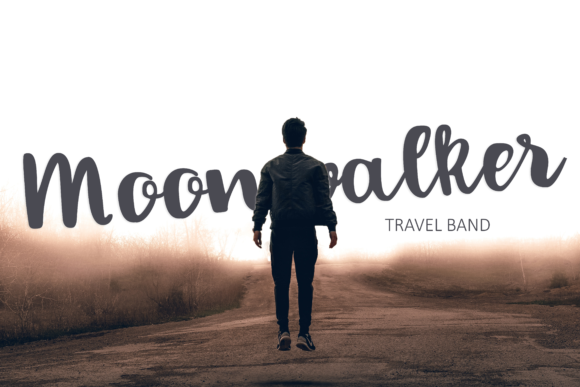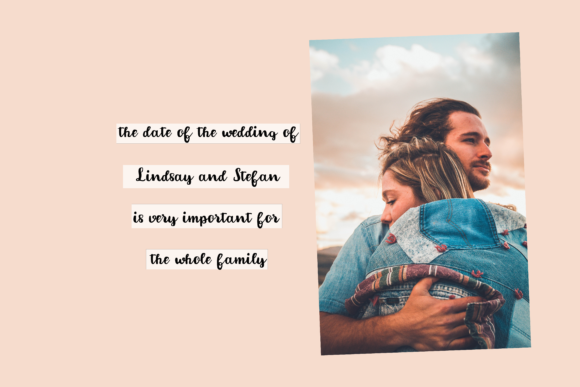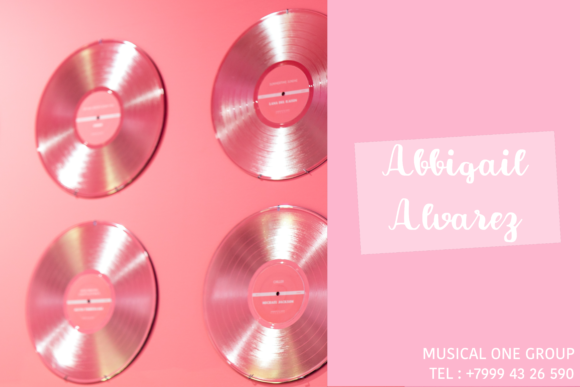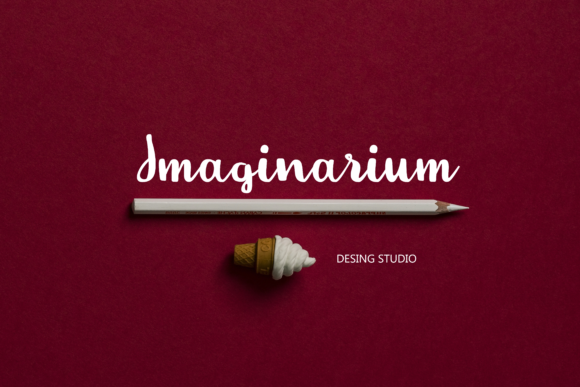
Forever Script Font: A Timeless Typeface Inspired by Love
When it comes to typography, there are countless fonts to choose from, each with its own unique character and charm. But what makes a font truly special? For us, it’s a font that tells a story, evokes emotions, and captures the essence of a feeling. And that’s exactly what the Forever Script Font does. Inspired by the power of love, this beautiful typeface is a must-have for designers and crafters looking to add a touch of elegance and romance to their projects.
The Story Behind Forever Script
Forever Script is a typeface inspired by love, with the simple yet profound philosophy that “the best thing in life is to believe that love is forever.” This beautiful script font is designed to capture the essence of eternal love, with flowing lines, delicate curves, and a sense of sophistication that’s hard to find in modern typography. Whether you’re working on a wedding invitation, a romantic getaway brochure, or a heartfelt letter, Forever Script is the perfect choice to convey your message with love and sincerity.
Design Features of Forever Script Font
So, what makes Forever Script Font so special? Here are just a few of its design features that set it apart from other script fonts:
- Flowing Lines: Forever Script features beautiful, flowing lines that give it a sense of movement and elegance. Each letter is carefully crafted to flow seamlessly into the next, creating a beautiful word that looks like it was written with love.
- Delicate Curves: The font features delicate curves and subtle swashes that add a touch of sophistication and romance to any project.
- Legibility: Despite its elegant design, Forever Script is highly legible, making it perfect for use in a variety of applications, from body text to headlines.
- Versatility: Forever Script is a versatile font that can be used in a wide range of projects, from wedding invitations and romantic getaways to fashion magazines and lifestyle blogs.
Uses of Forever Script Font
So, what can you use Forever Script Font for? The possibilities are endless! Here are just a few ideas to get you started:
- Wedding Invitations: Add a touch of romance and elegance to your wedding invitations with Forever Script Font.
- Romantic Getaways: Use Forever Script to create beautiful brochures and websites for romantic getaways and honeymoon destinations.
- Fashion Magazines: Add a touch of sophistication and glamour to your fashion magazine with Forever Script Font.
- Lifestyle Blogs: Use Forever Script to create beautiful and engaging content for your lifestyle blog.
- DIY Crafts: Forever Script Font is also perfect for crafters who love to create handmade cards, scrapbook pages, and other DIY projects.
Why Choose Forever Script Font?
So, why choose Forever Script Font over other script fonts? Here are just a few reasons:
- Unique Design: Forever Script Font has a unique design that’s unlike any other script font on the market.
- High-Quality: The font is designed with high-quality and legibility in mind, making it perfect for use in a variety of applications.
In conclusion, Forever Script Font is a beautiful and timeless typeface inspired by the power of love. With its flowing lines, delicate curves, and sense of sophistication, it’s the perfect choice for designers and crafters looking to add a touch of elegance and romance to their projects. Whether you’re working on a wedding invitation, a romantic getaway brochure, or a heartfelt letter, Forever Script Font is sure to make your project stand out. So why wait? Download Forever Script Font today and start creating beautiful projects that capture the essence of eternal love.